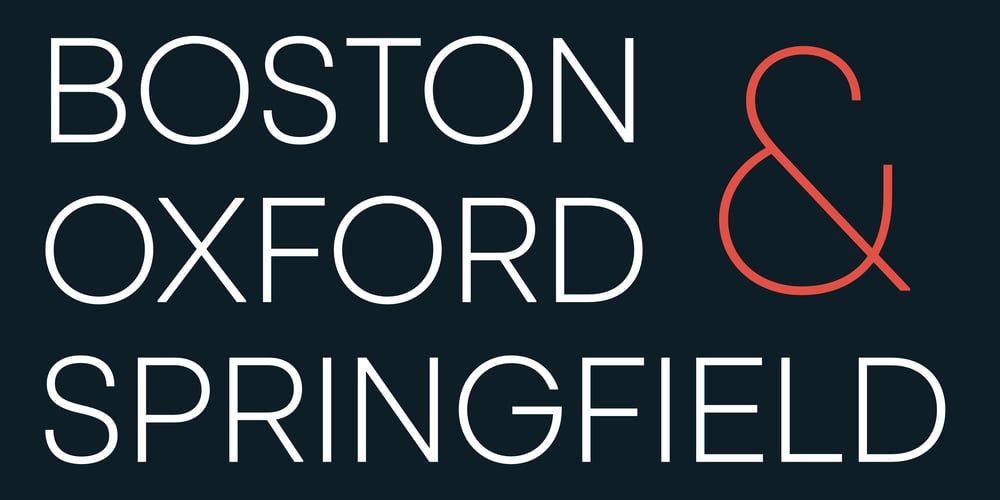
Rothorn Font Family was designed by Roch Modrzejewski and published by ROHH. Rothorn contains 21 styles and family package options. Rothorn™ is a modern, minimalist geometric sans with its own personality derived for subtle design details, such as cut diagonal corners, pointed t, very small contrast and closed aperture. The letterforms give the typeface a lot of charisma, keeping a very minimal, clear and well balanced look at the same time. Its powerful and sharp shapes together with the variety of weights from Hairline to Black make it a perfect choice for headlines and branding. Generous x-height, careful spacing and distribution of weights give it a color and legibility great for long paragraphs of text.Rothorn is a geometric member of a large type system including such families as Montreux Grotesk (Swiss-style grotesk), Lütschine (narrow headline family) and Conthey (narrow headline unicase family). The Rothorn family consists of 10 weights with corresponding italic styles, giving a total of 20 styles. Italic styles were hand drawn to get sharp and fine letter shapes. It includes a 2-axis variable font letting you adjust the weight and italic slant to your exact needs.The family has extended latin language support, as well as broad number of OpenType features, such as, case sensitive forms, ligatures, contextual alternates, lining, oldstyle, tabular and circled figures, slashed zero, fractions, superscript and subscript, ordinals, currencies and symbols.